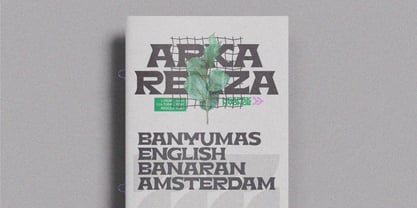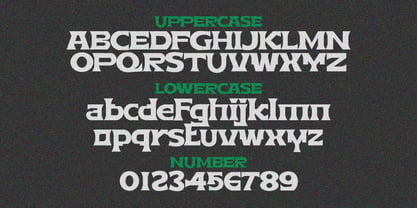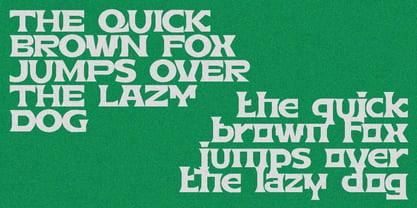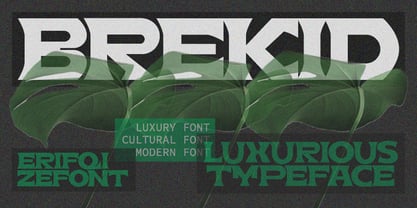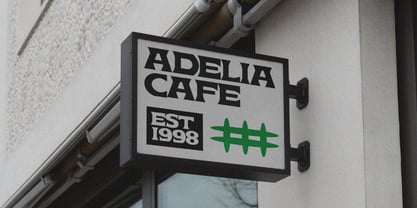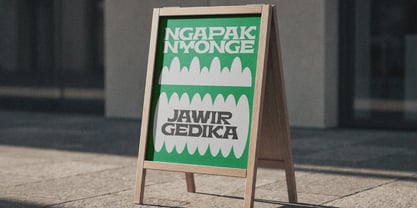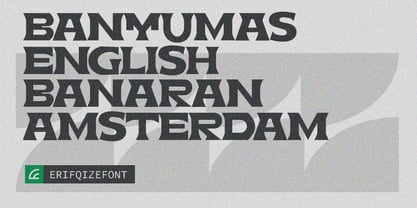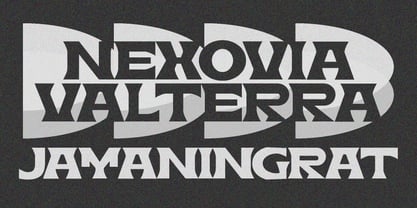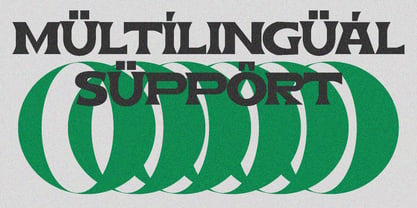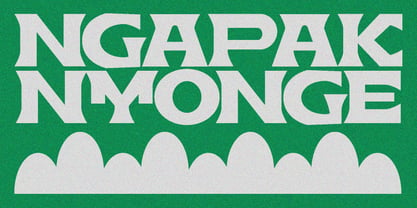
Brekid
by Erifqizefont
The Brekid Font Family was designed by Eka Rifqi Setiawan and published by Erifqizefont. Brekid contains 1 styles. More about this family
BREKID is a luxurious cultural display font that blends modern elegance with ethnic-inspired aesthetics. Featuring sharp geometric cuts, bold letterforms, and artistic ornamental details, BREKID delivers a strong visual identity perfect for premium branding, cultural projects, fashion editorials, luxury packaging, posters, album covers, and modern ethnic designs.
Its unique futuristic structure combined with cultural nuances creates a sophisticated and exclusive atmosphere, making the font stand out in both digital and print applications. BREKID is designed for creators who want a bold, artistic, and luxurious typographic statement.
Designers: Eka Rifqi Setiawan
Foundry: Erifqizefont